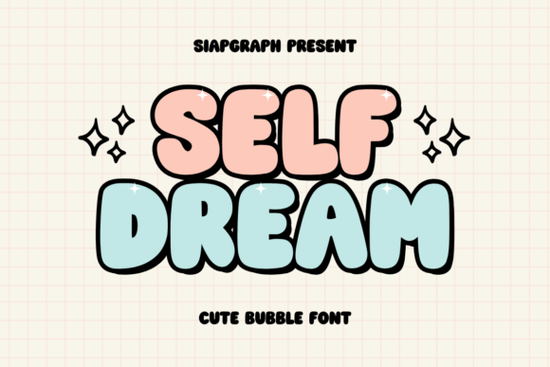
Looking for a bubble font that feels fun, friendly, and a little bit whimsical? Self Dream is a playful display font with soft, rounded letterforms and a bold presence. It works well for projects that need a lighthearted, approachable vibe think kids' party invitations, social media posts, cute product labels, or branding for a creative small business.
This font sits in the display font category, which means it's designed for short, impactful text rather than long paragraphs. If you've been scrolling through other display fonts and nothing quite clicked, Self Dream might be the one that finally fits.
What Makes Self Dream Different From Other Bubble Fonts?
Plenty of fonts claim to be "cute" or "playful," but not all of them actually deliver. Self Dream stands out because of its soft curves and rounded edges that give each letter a balloon-like quality. It doesn't feel childish to the point of being unusable for adult-facing projects, either. The bold weight keeps it readable even at smaller sizes on screens.
Here's what you get with Self Dream:
- Smooth, rounded letterforms that feel warm and inviting
- Bold weight for strong visual impact in headlines
- Consistent spacing that makes it easy to work with
- A style that pairs well with both serif and sans-serif body fonts
Compared to something like a holiday-themed display typeface or a rugged Western-style font, Self Dream leans into softness and approachability. It's not trying to be edgy or dramatic it's just genuinely cheerful.
Where Can You Use a Font Like This?
This is where Self Dream really shines. Its versatility across different projects is one of its strongest points. Here are some practical ways designers and crafters are using it:
- Social media graphics Instagram stories, Pinterest pins, and TikTok overlays where you need text that pops without feeling harsh
- Print-on-demand products T-shirts, mugs, tote bags, and stickers aimed at a younger or fun-loving audience
- Kids' party supplies Invitations, banners, cupcake toppers, and thank-you cards
- Branding for small businesses Bakeries, craft shops, children's clothing brands, or any business that wants a friendly personality
- Blog headers and website banners Especially for lifestyle, parenting, or creative niches
- YouTube thumbnails Bold enough to read at a glance, playful enough to grab attention
How Do You Pair Self Dream With Other Fonts?
Good font pairing can make or break a design. Since Self Dream is bold and rounded, it works best alongside fonts that offer contrast. Here are a few pairings that tend to work well:
- Self Dream + a clean sans-serif (like Montserrat or Poppins) Great for modern, minimal layouts
- Self Dream + a handwritten script Adds a personal, crafty feel to invitations or cards
- Self Dream + a simple serif (like Lora or Playfair Display) Creates an interesting mix of playful and elegant
The key is to let Self Dream handle the headlines and short phrases while using a simpler font for body text. Mixing two decorative fonts together usually creates visual clutter.
Is Self Dream a Good Fit for Print-on-Demand Sellers?
Short answer: yes, if your target audience responds to cute, fun designs.
Print-on-demand platforms like Redbubble, Merch by Amazon, and Etsy reward designs that feel niche and specific. A font like Self Dream can help you create designs that appeal to people looking for lighthearted, feel-good products. Think quotes about friendship, funny sayings for mugs, or cheerful graphics for kids' apparel.
Quick Design Tips When Working With Bubble Fonts
Bubble fonts look simple, but they can be tricky to use well. A few things to keep in mind:
- Don't use all caps for long words Bubble letters in all caps can take up too much space and lose readability
- Add subtle shadows or outlines to help the text stand out on busy backgrounds
- Keep your color palette simple One or two bold colors work better than a rainbow with this style
- Leave enough white space around the text so the rounded shapes don't feel cramped
- Test at different sizes Make sure it reads well both as a large headline and as a smaller label
A good font doesn't need to do everything it just needs to do its job well. Self Dream does the "fun and friendly" job really well, and that's exactly why it's worth having in your toolkit.